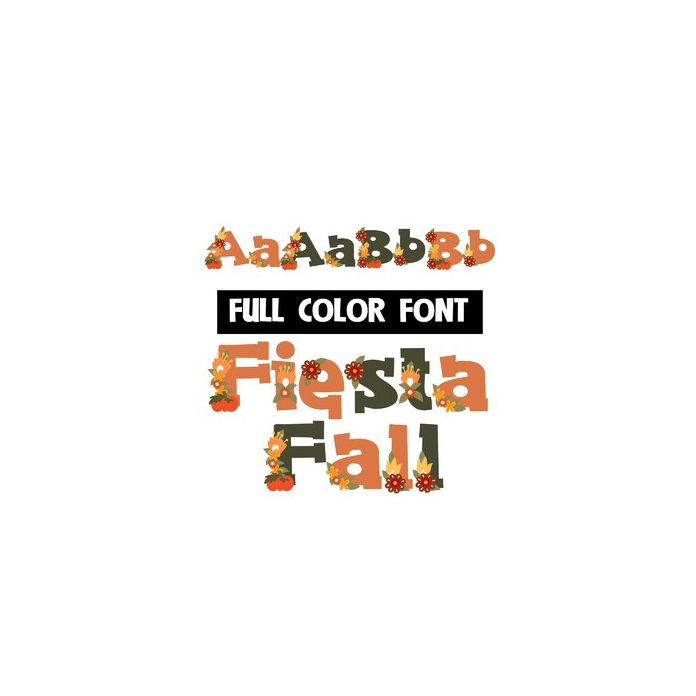
This full-color font features an autumn-colored font with pretty florals and pumpkins. There is an alt version of each letter you can access through your system or Silhouette's glyph map.